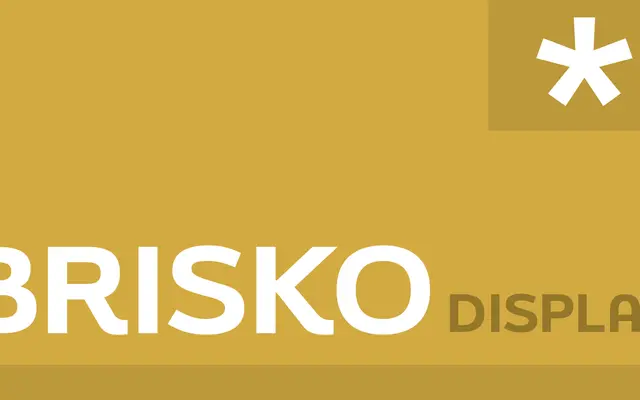
Brisko Display
Tour de Force · Dušan Jelesijević · 2013
A single-style display cut derived from Brisko Sans Black, designed by Dušan Jelesijević for large-scale headline use.
Drawn from the Black weight of the Brisko Sans family, this display variant is offered in one style only, pitched at poster and headline work. Extended Latin coverage spans 102 languages, and OpenType support includes standard ligatures. Released in 2013 and updated to version 2, it is a focused tool rather than a versatile family.
The foundry classifies this as Display; it is derived from Brisko Sans Black, a single heavy-weight display cut intended for large-scale typesetting rather than text use.